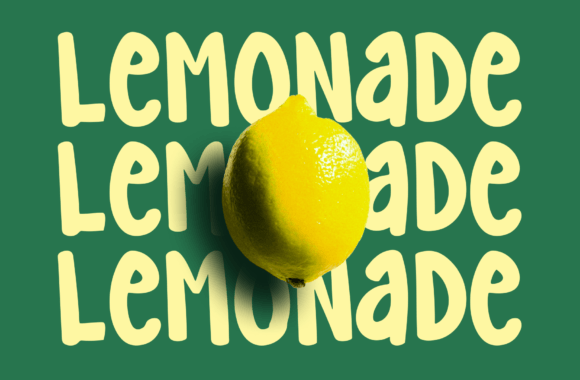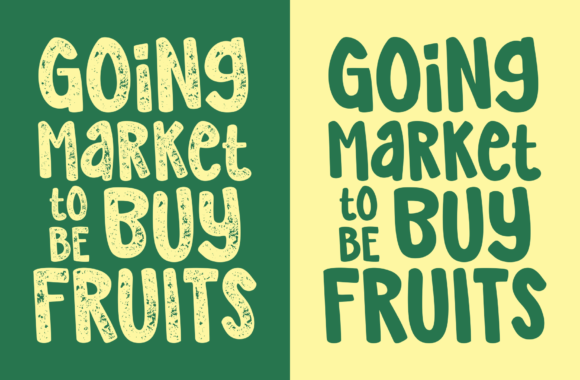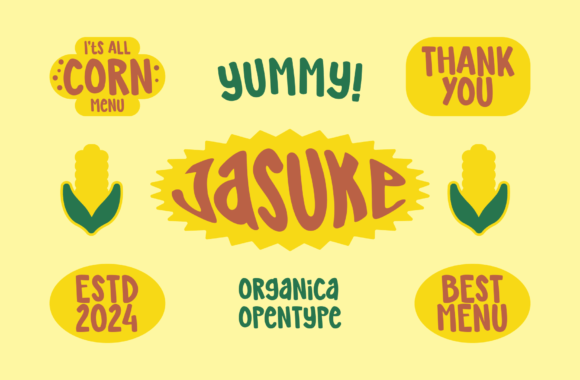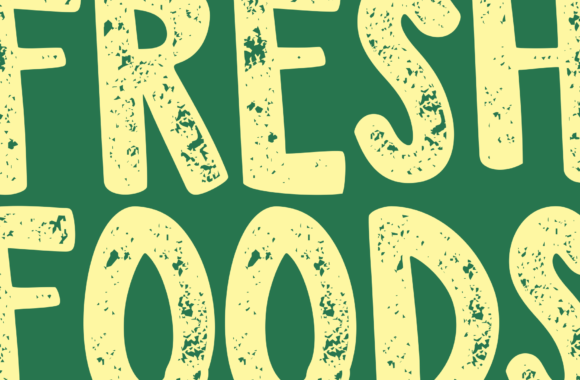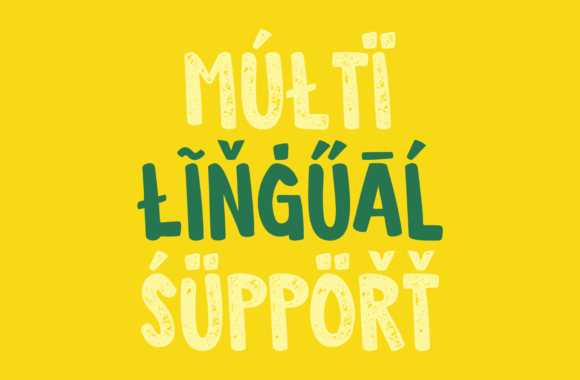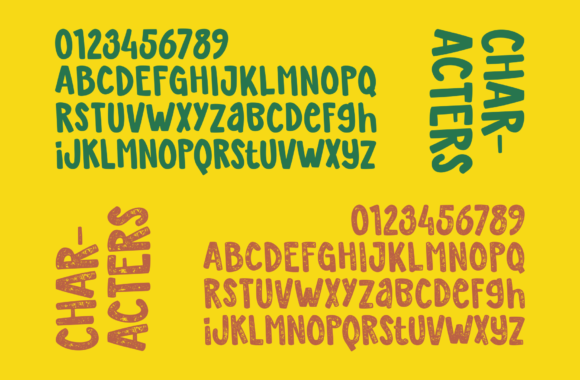
Introduction to Organica Font
Introducing **Organica** is a playful hand-drawn font characterized by its unique .
This font brings a fun and lively touch to any design project, making it perfect for informal and creative themes Organica comes in two variants, regular and rough, allowing for greater flexibility and expression in your designs.
Key Features of Organica Font
Why Choose Organica Font?